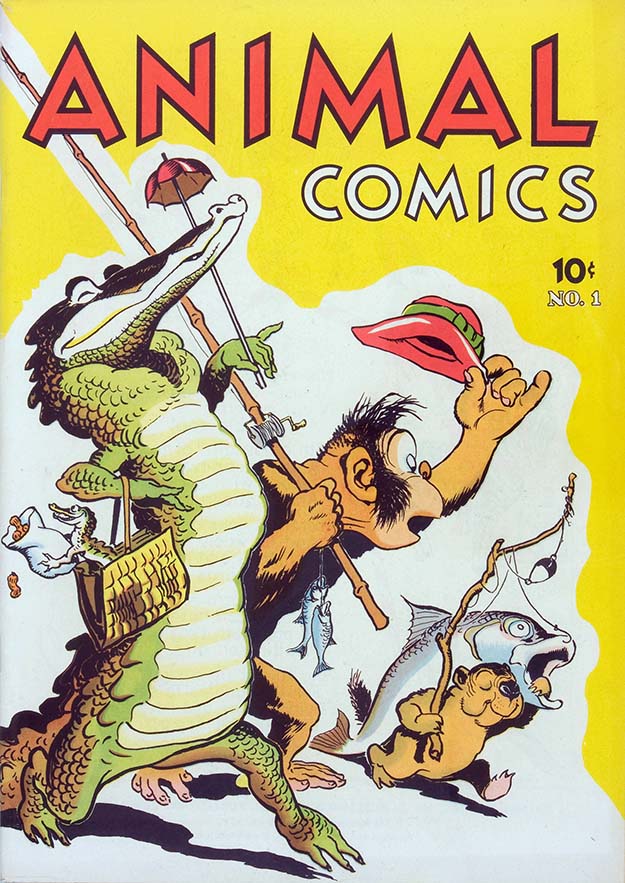
Walt Kelly, George Ward, Henry Shikuma and POGO
From POGO Daily, Oct 9 1963, original art from my collection.
Of all the comic strips I’ve seen, not one has better lettering than Walt Kelly’s POGO. The strip has many  fine qualities: excellent art, clever writing, charming characters, witty humor, canny satire, whimsy, wisdom…but that amazing, glorious lettering is what gets my attention first. Walt Kelly was a comics genius whose storytelling had many facets. His lettering is an important one, and he had help doing it from his assistants George Ward and Henry Shikuma, though Kelly himself always blue-penciled the lettering they produced. You can see that above, he even penciled the elaborate question mark in the fanciful circus-poster lettering. He was fortunate to have assistants who were skilled enough to create finished letters equally as good, or sometimes better, than the masterful work Kelly did himself.
Walt Kelly, 1950s, photo by Ed Wergeles for Newsweek, courtesy of Carsten Lacqua
Walter Crawford Kelly Junior was born August 25, 1913 in Philadelphia, Pennsylvania. At two, his family moved to Bridgeport, Connecticut, where Walt grew up. In the book Walt Kelly, The Life and Art of the Creator of Pogo (2012, Hermes Press), Thomas Andrae writes:
Kelly was a precocious artist, starting to draw at age three by copying his favorite comic strips. He was especially influenced by Percy Crosby’s kid strip SKIPPY and Roy Crane’s adventure saga, WASH TUBBS. Kelly was also inspired by the artistry of his father who painted theatrical scenery and taught his son to draw.
During and after high school, Kelly worked as a reporter and editorial cartoonist for the Bridgeport Post, where he drew a daily comic strip about circus owner P.T. Barnum. (I haven’t found any examples.) In 1934 he went to New York City to study art and find illustration work.
From NEW COMICS #1, Dec 1935, images © DC Comics
Among other things, he wrote and drew a two-page excerpt from Jonathan Swift’s Gulliver’s Travels for NEW COMICS #1 from National Allied Publications, later DC Comics. As you can see, he was already doing ambitious lettering. In 1936 Kelly went to California to work for Disney. He was there six years, half in the story department, half in animation. He worked on Snow White, Pinocchio, Fantasia, The Reluctant Dragon and Dumbo as well as short cartoons. Kelly left in 1941 and returned to New York looking for comic book work, armed with a letter of recommendation from Walt Disney himself. He soon found a home at Dell Comics on both Disney and non-Disney features.
From FAIRY TALE PARADE #1, June-July 1942, Dell Comics, front and back covers, © Oskar Lebeck
Editor Oscar LeBeck was delighted with Kelly’s work (who wouldn’t be?), and gave him FAIRY TALE PARADE which Walt produced cover-to-cover: writing, art, and everything else. His lettering and logo design skills were already impressive. Kelly often designed logos for other Dell books he worked on, including OUR GANG COMICS (based on the short comedy films) and seasonal titles like SANTA CLAUS FUNNIES and EASTER WITH MOTHER GOOSE.
From FOUR COLOR #59 Mother Goose and Nursery Rhyme Comics, Dec 1944, Dell, © Oskar Lebeck
Kelly’s lettering skills were equally evident inside the comics, where he liked to illustrate poems. His lettering is precise enough to pass for type, but has organic warmth clearly from the same hand as the pictures. Kelly’s knowledge of and skill with lettering, logos and type design is amazing for an artist who was also so talented at drawing appealing, lively figures and animals. He really had it all.
From ANIMAL COMICS #1, Dec 1942, art by H. R. McBride, Dell, © Oskar Lebeck
It was in another Dell title, ANIMAL COMICS, that Kelly’s future path was set. In the first issue, Albert the Alligator starred in a five-page story by Walt, with Pogo Possum in a bit part. Over time, Pogo became Albert’s partner in the stories…
From FOUR COLOR #105, April 1946, Dell, , © Oskar Lebeck
…which gained their own recurring title in Dell’s long running anthology variety series FOUR COLOR in 1946. Albert, Pogo and friends also appeared regularly in ANIMAL COMICS until 1948, then returned in sixteen issues of POGO POSSUM from Dell, 1949 to 1954.
From ANIMAL COMICS #8, April-May 1944, Western/Dell, , © Oskar Lebeck
While Walt Kelly may have lettered a few of his stories in ANIMAL COMICS, many were lettered by Ray Burley, who was doing other lettering for Dell, or possibly by other Dell letterers. Above is an example of Ray’s lettering on an Albert the Alligator story. For more about Burley, see THIS article.
First POGO Daily, Oct 4 1948, The New York Star. This and all POGO images © Okefenokee Glee & Perloo, Inc. Used with permission.
In the summer of 1948, Walt Kelly joined the staff of a new left-wing newspaper, The New York Star, doing editorial cartoons and other work. Kelly had gotten comic strip rights to Pogo from Dell, and offered it as a daily newspaper strip to The Star, where it appeared Monday through Saturday starting October 4, 1948. While the art and balloon borders are by Kelly, the lettering doesn’t look like his work, or that of Ray Burley. It’s by Walt’s first assistant, George Ward.
Walt Kelly and George Ward, 1955, courtesy of Michael Barrier
George Arthur Ward was born February 18, 1921 in Scranton, Pennsylvania. By 1940 he and his family were in Philadelphia. George joined the Marines in 1940 and served overseas from 1942 to 1944. He did cartooning in the service, and while in Australia in 1943 presented a bound book of his cartoons to the President’s wife Eleanor Roosevelt, who was visiting his camp. After returning to civilian life in Philadelphia where he attended the Hussian School of Art, Ward had a short-lived art studio in Philadelphia with fellow student and later comics artist Joe Maneely, then moved to New York, finding work at various newspapers and magazines. In a 1977 interview with Bill Crouch Jr. published in The Best of Pogo (1982, Simon and Schuster), Ward said: